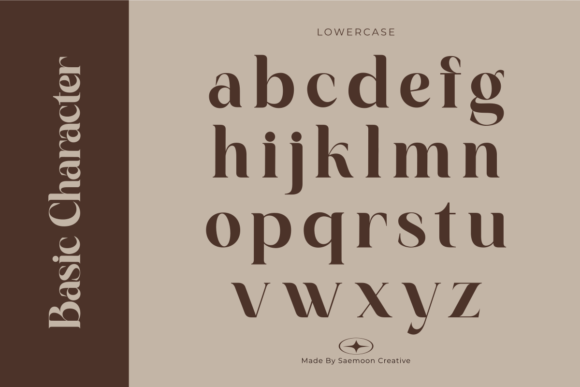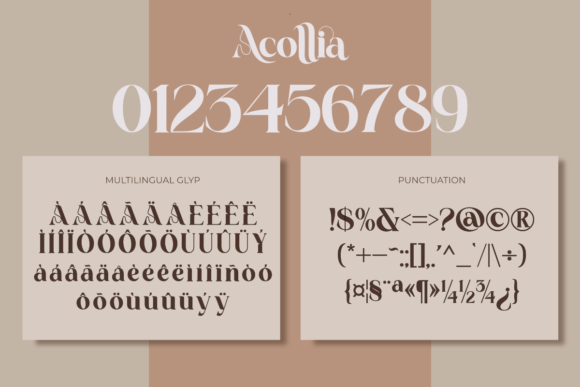
Acollia Font
Introducing Acollia – a serif typeface that effortlessly melds elegance and innovation to curate a truly unique style. Adorned with intricate details and captivating contours, Acollia oozes luxury while ensuring optimal readability. This masterfully balanced typeface strikes a perfect equilibrium between the classic charm of traditional serif fonts and the exciting appeal of modern design aesthetics. Whether enhancing a logo, adding finesse to product packaging, or elevating an editorial design, Acollia is the leading pick for those seeking to impart a polished and trendy persona to their branding endeavors.